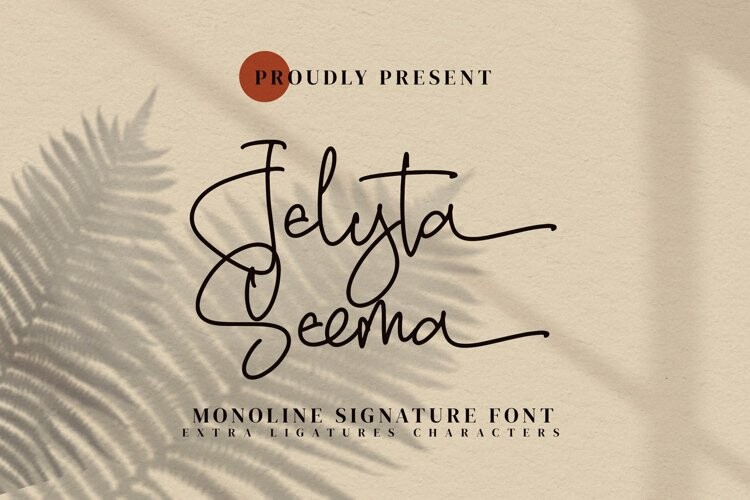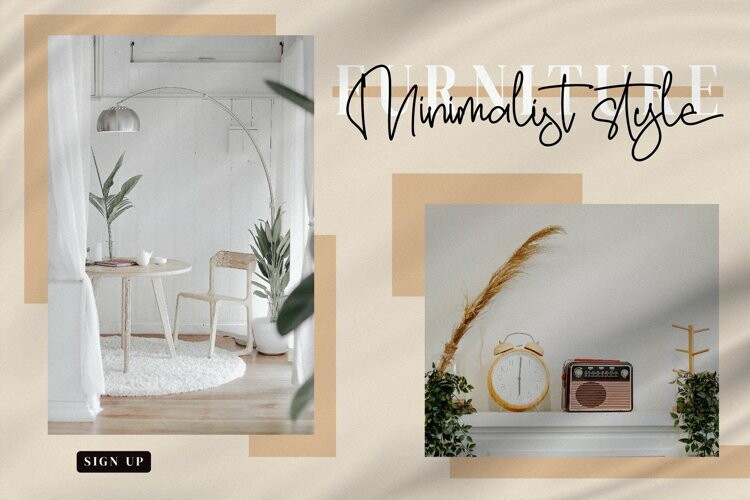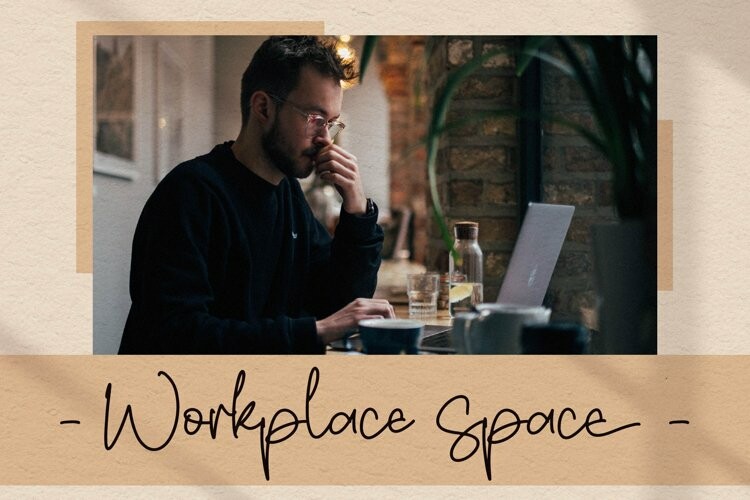
Jelyta Seema Font
Jelyta Seema FontJelyta Seema – Monoline Signature Font, from Integritype Studio, is a premium Calligraphy Font , suitable for any projects such as: logos, branding projects, homeware designs, product packaging, mugs, quotes, posters, shopping bags, t-shirts, book covers, name card, invitation cards, greeting cards, label, photography, watermark, special events, and all your other luxury projects that need a premium signature taste.